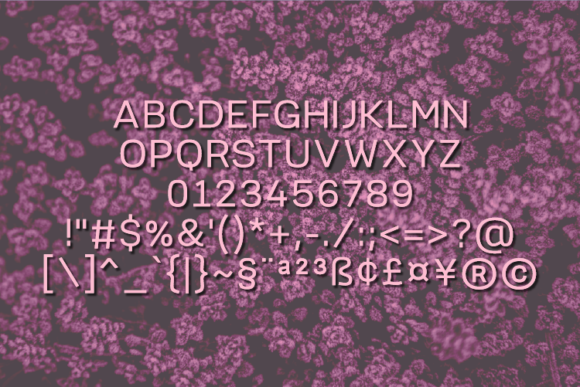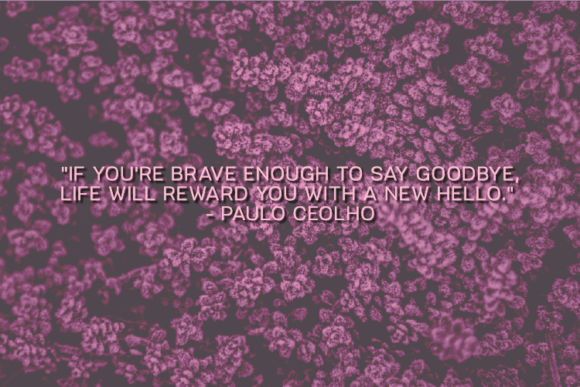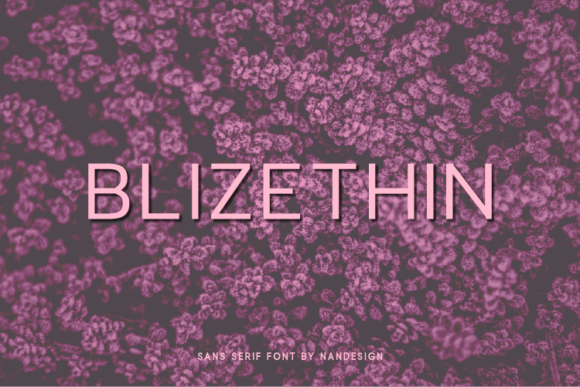
Unlocking the Future of Design with Blizethin Font
Have you ever found yourself staring at a blank canvas, waiting for inspiration to strike? You’ve got a project in mind, but nothing seems to be sparking creativity. Suddenly, a burst of lightbulb moments and your ideas start flowing. For designers, this is a moment of pure bliss. And, for those who are about to discover the Blizethin Font, this feeling is about to become a regular occurrence.
Blizethin Font is a sleek, modern sans serif font designed to add a touch of futurism to your designs. Whether you’re creating headings, invitations, logos, or any other visual content, this font is the perfect tool to elevate your work. Its thin lettering and simple design make it a versatile choice for designers looking to add a modern twist to their projects.
Blizethin Font Key Features
- Font Family: Blizethin is a sans-serif font family with a modern and sleek design.
- Unique Characteristics: Blizethin features a unique blend of geometric and organic shapes, resulting in a clean and modern aesthetic.
Blizethin Font Review
First off, let’s talk about what works well. The Blizethin font ✨ has a unique and modern aesthetic that’s perfect for digital products and apps. The clean lines and geometric shapes make it a great choice for anyone looking to create a sleek and futuristic design. The font also comes in a variety of weights and styles, making it highly customizable. This flexibility is a major plus for designers who need to create multiple versions of a design.
One of the standout features of the Blizethin font is its legibility. ✨ The font is designed to be easy to read, even at small sizes, making it perfect for use in digital interfaces where text is often small. Additionally, the font’s x-height is well-proportioned, making it easy to read for people with vision impairments.
While the Blizethin font is a solid choice for many designers, there are a few limitations to consider. ⚠️ The font may not be the best choice for projects that require a more traditional or serif font. Additionally, some designers may find the font’s modern aesthetic to be too trendy or overused. Finally, the font may not be suitable for projects that require a lot of fine typography, as the font’s geometric shapes can make it difficult to achieve subtle variations in letter spacing and size.
Overall, I would give the Blizethin font a solid 4 out of 5 stars. While it may not be the best choice for every project, it’s a versatile and highly customizable font that’s perfect for digital products and apps. With its modern aesthetic and excellent legibility, it’s a great choice for designers who want to create a sleek and futuristic design.
- Unique and modern aesthetic
- Excellent legibility
- Available in a variety of weights and styles
- Well-proportioned x-height
Tips for Getting the Most Out of Blizethin Font
Blizethin Font is a modern, sans-serif font that works well for headings and titles.
Use it sparingly to add visual interest to your designs.
Pair it with a bold font for contrast and emphasis.
Experiment with different font sizes and colors to create a unique look.
Blizethin Font is ideal for:
Headings and titles in digital designs.
Business cards and resumes.
Marketing materials and advertisements.
Web design and development.
Alternatives to Blizethin Font
The Blizethin Font is a sans-serif font known for its modern and sleek design. However, designers may be looking for alternatives that offer unique characteristics or better versatility. Here are a few options to consider.
Montserrat is a geometric sans-serif font designed for digital use. It features a strong and modern aesthetic with a grid-based structure. Montserrat is ideal for digital projects, logos, and headlines. It is similar to Blizethin Font in its modern and sleek design, but with a more geometric feel.
Open Sans is a clean and modern sans-serif font that is highly legible. It features a friendly and approachable aesthetic, making it suitable for a wide range of applications, from body text to headings. Open Sans is more versatile than Blizethin Font, with a greater range of weights and styles available.